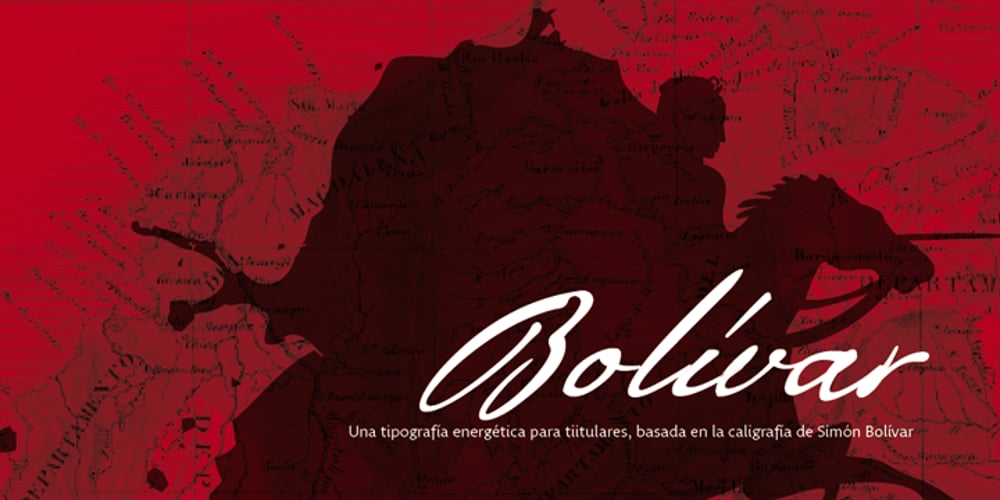
Bolívar Font Family was designed by Carlos Fabián Camargo Guerrero, César Puertas and published by César Puertas. Bolívar contains 2 styles and family package options. Bolívar is a contemporary display typeface inspired in the handwriting of one of the most prominent personalities of the Latin American 19th century: Simón Bolívar, “the liberator”. The typeface intends to capture the passion of handwritten letterforms and to translate it into type. Among the characteristics that best contribute to its strong personality, are the impressive length of ascenders and descenders as well as the more than 45 degrees of slant. Bolívar mimics certain aspects of handwriting such as the slightly different baseline for each letter and ink clogs in the counters of some letters. Use Bolívar whenever you need to add passion to a piece of text, from logos or single words to sentences and captions.